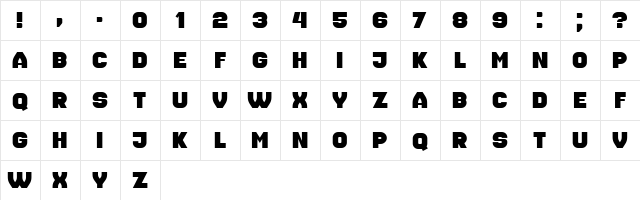
Housebreak Regular
Housebreak offers clean, dependable letterforms without strong stylistic allegiance, making it a practical choice for designers who need flexibility.